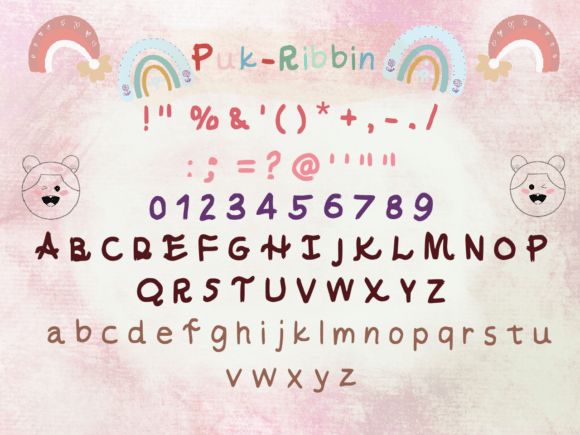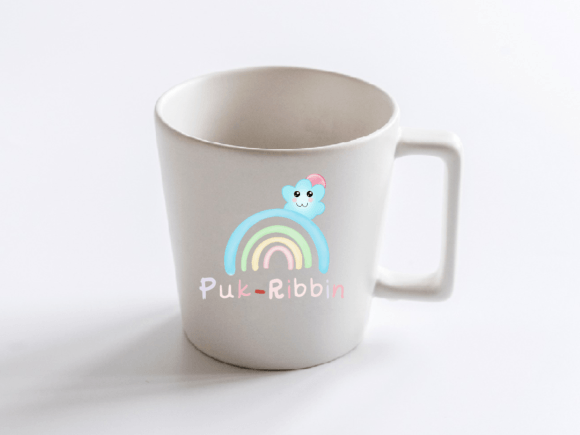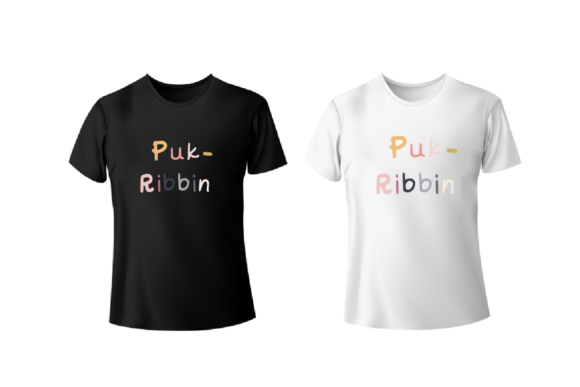
Introduction to Puk Ribbin Font
Puk Ribbin is a lovely handwritten font designed with a streak at the end of each letter.
You can use it in your letter, greeting card design, wedding card, etc It makes your letters look different and original.
Key Features of Puk Ribbin Font
Why Choose Puk Ribbin Font?
Puk Ribbin Font offers exceptional quality and versatility, making it a valuable addition to your design toolkit. Whether you’re creating for personal projects or commercial use, Puk Ribbin Font delivers professional results.